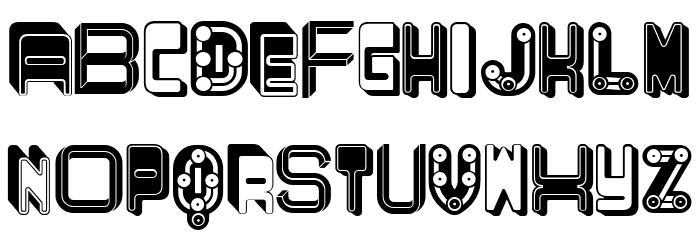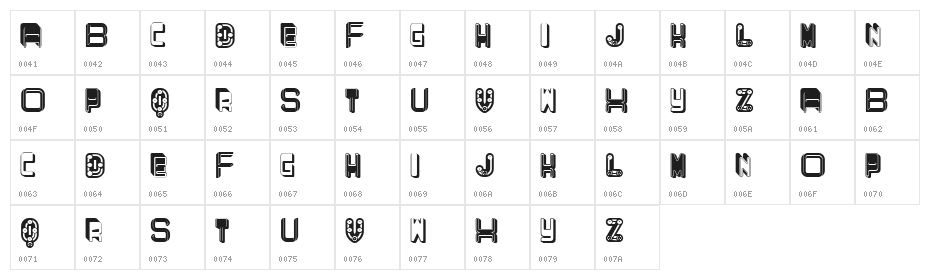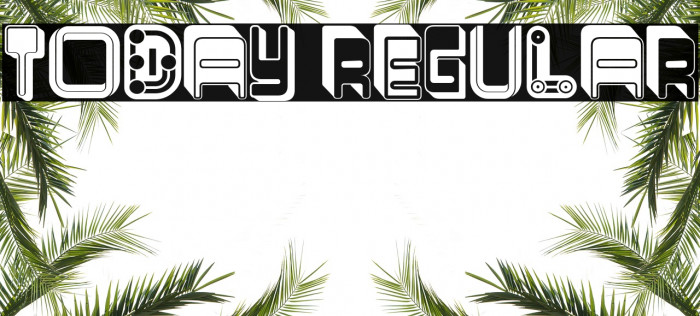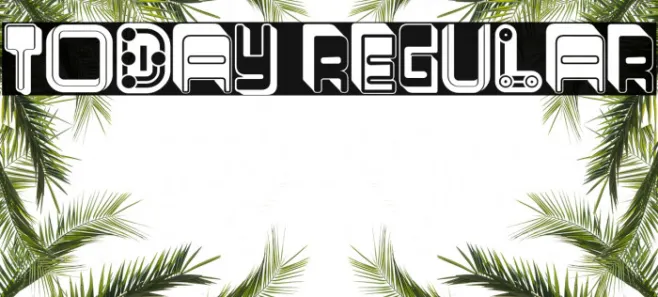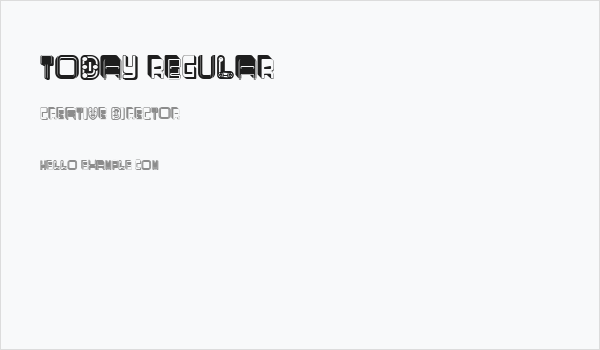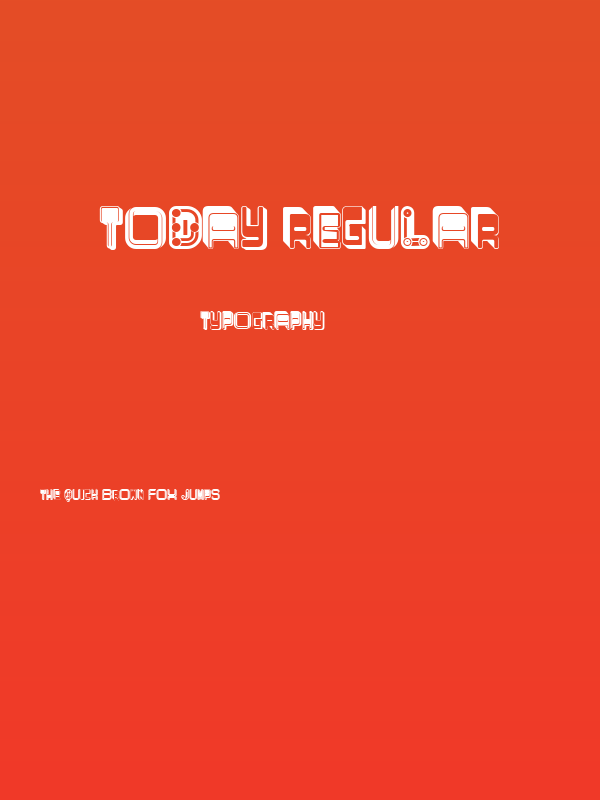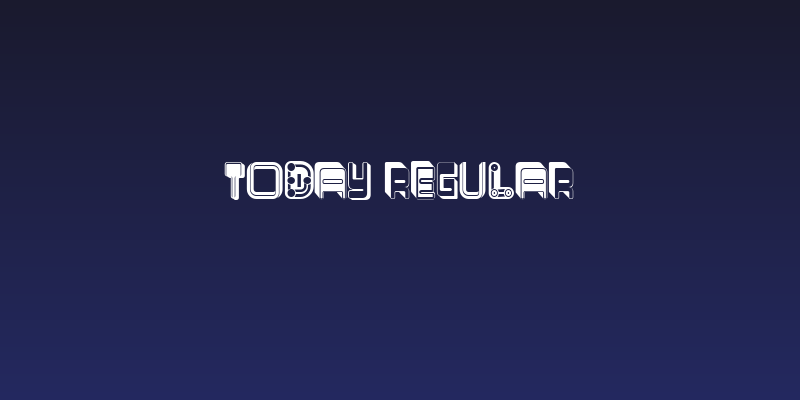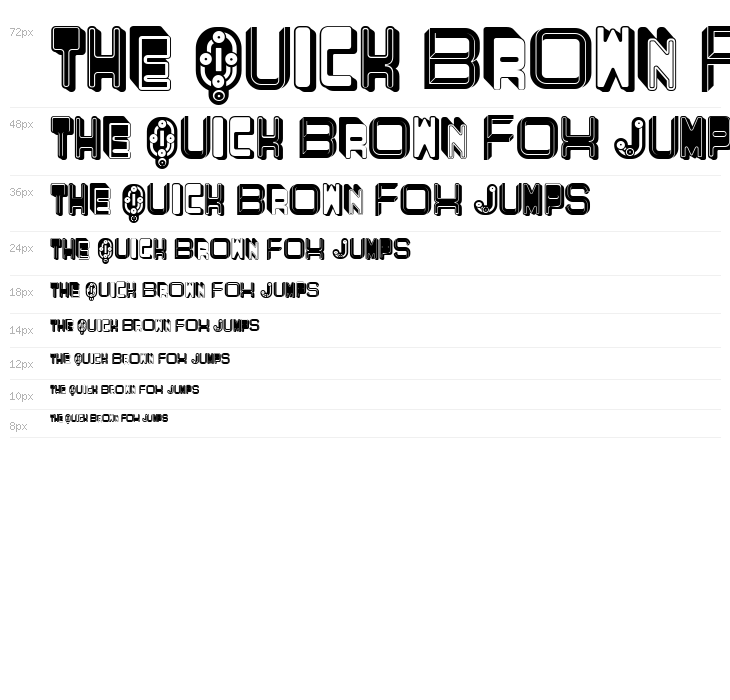
Today Regular Font
Today Regular Description
This font features a bold and futuristic design with a strong emphasis on geometric shapes and intricate patterns. Each letter is uniquely crafted with a combination of solid fills and hollow spaces, creating a dynamic visual effect. The font has a distinct industrial and mechanical feel, with elements resembling gears and circuits. The uppercase letters are particularly striking, with bold outlines and detailed interiors that draw the eye. The overall appearance is both modern and decorative, making it suitable for projects that require a standout typeface.
Proposed ProjectsIdeal for technology-themed posters, sci-fi book covers, video game titles, and branding for tech companies.